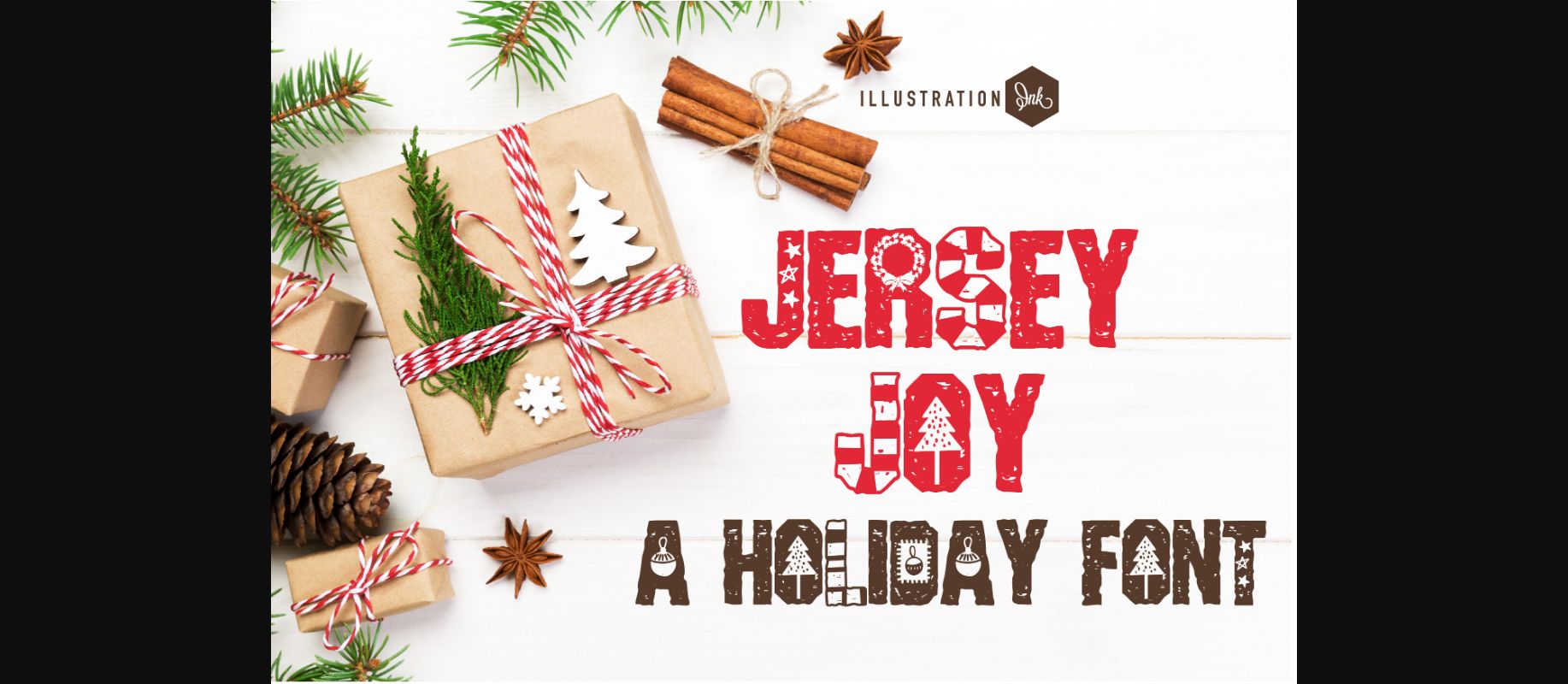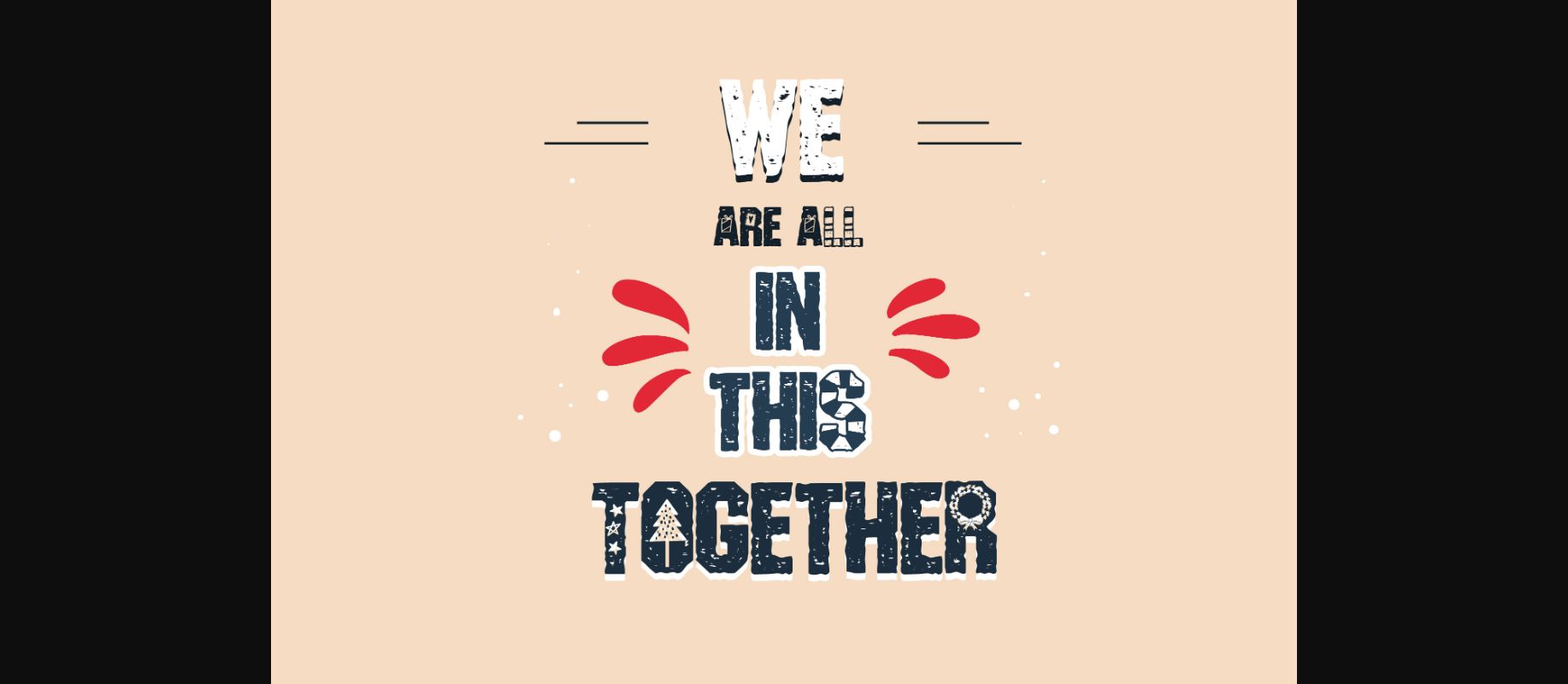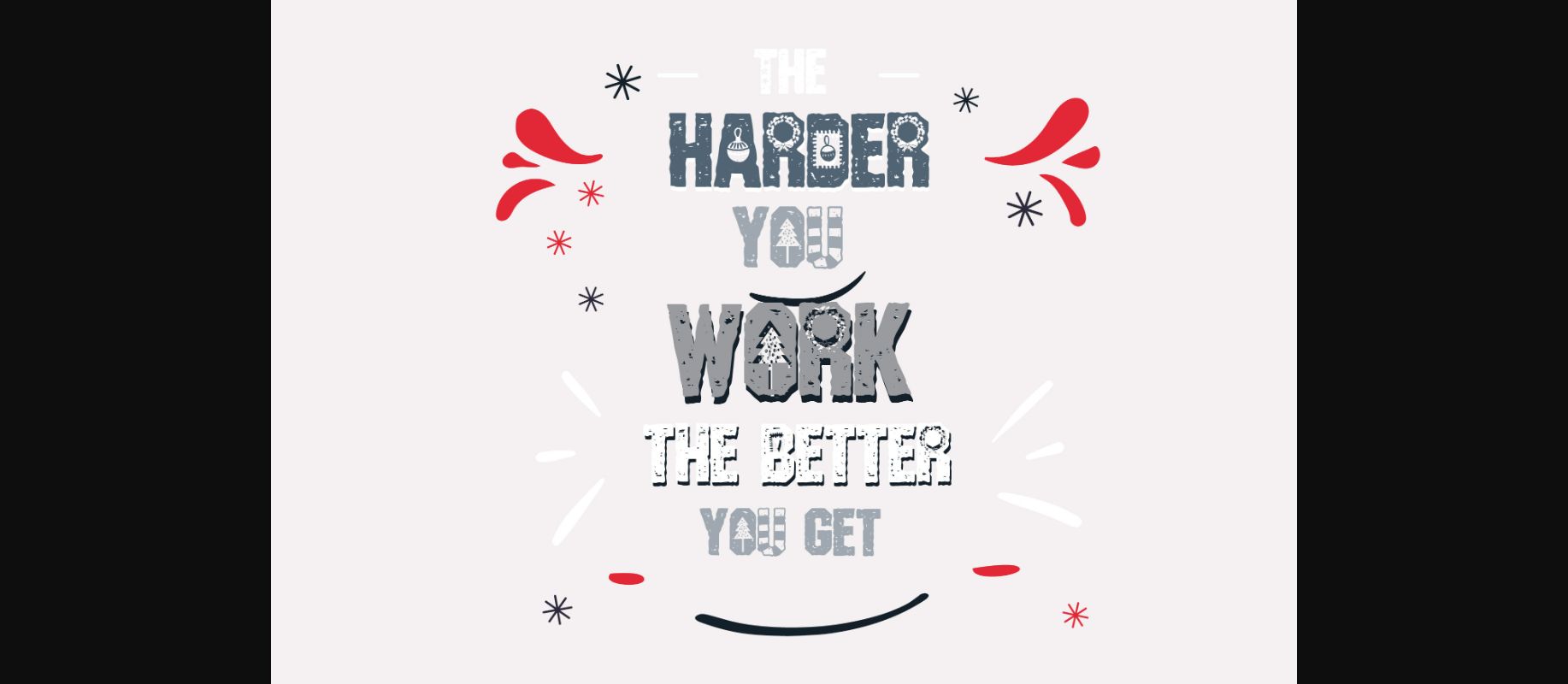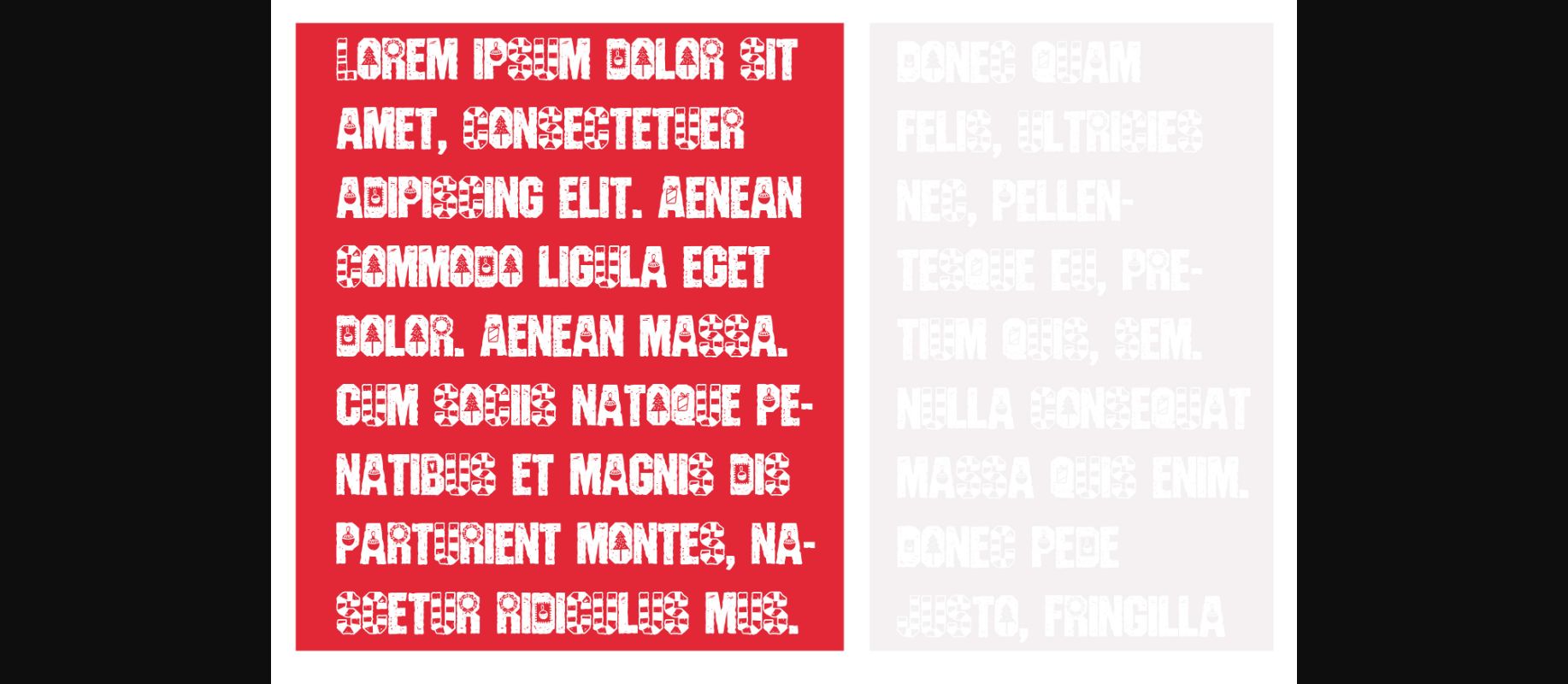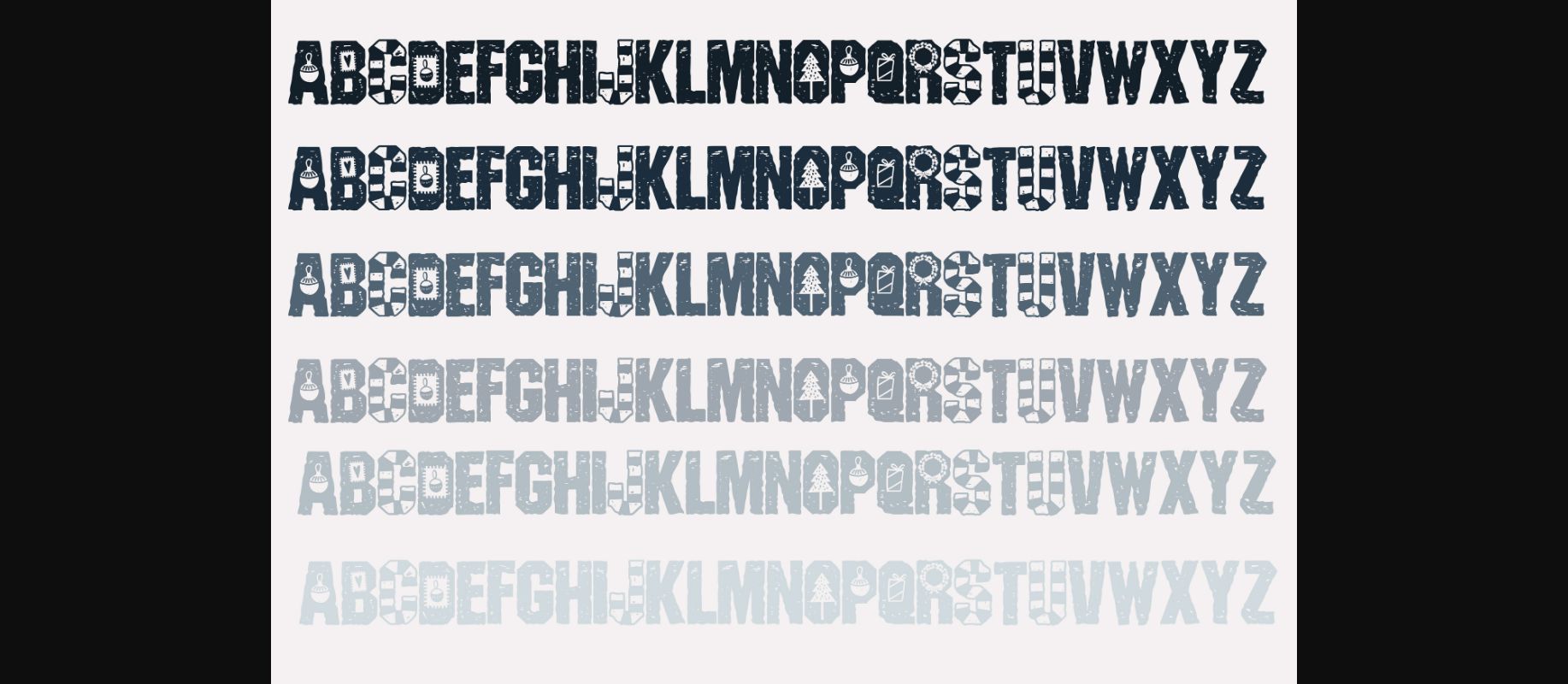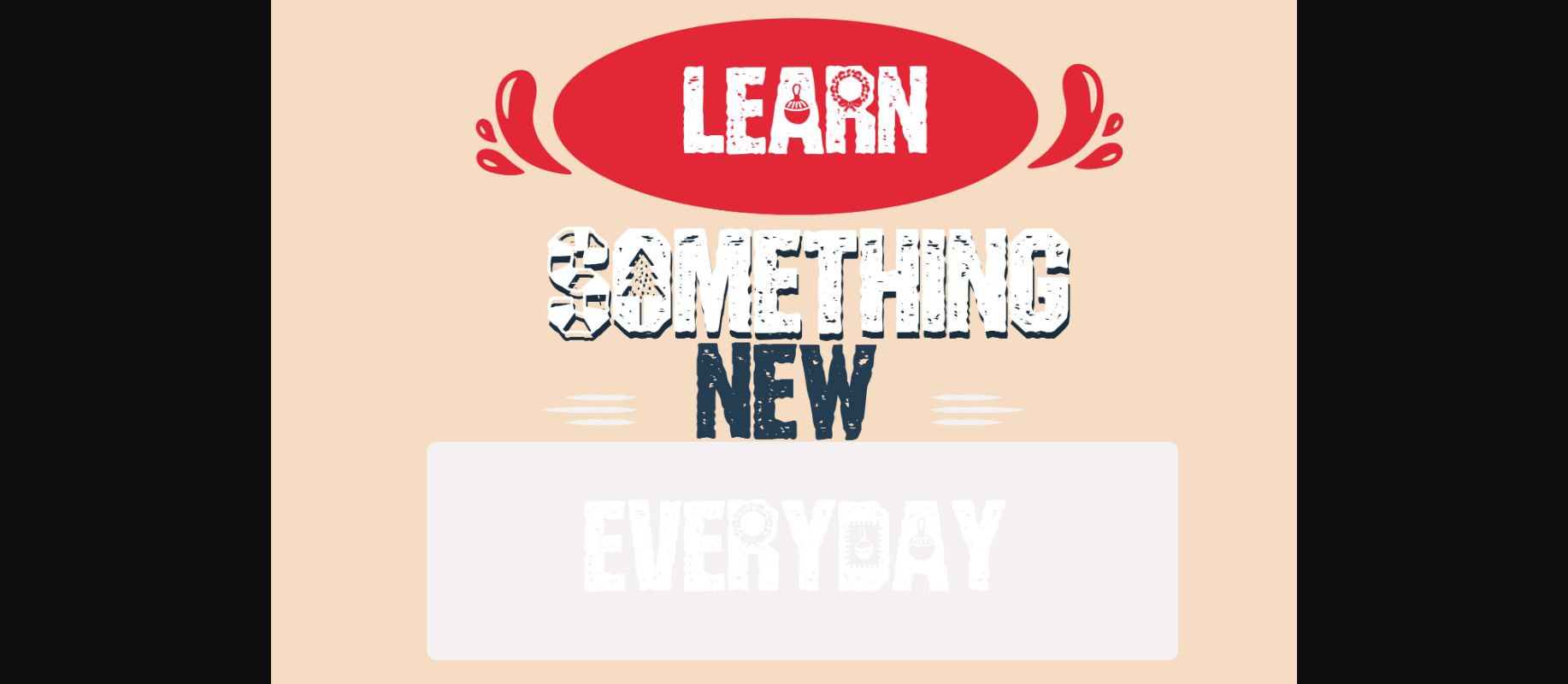
About Jersey Joy Font
This athletic font has been spruced up for Christmas with candy cane stripes, ornaments and more.
A hand-crafted font is a font that is designed to look like it was written by hand. It is often used for invitations, greeting cards, and other items. Handwritten fonts can be either formal or informal, and they can be used for a variety of purposes.
Handwritten fonts can be a great way to add a casual touch to your designs. They can also be used to create a sense of nostalgia or whimsy. However, it is important to choose a handwritten font that is appropriate for the project you are working on. A formal handwritten font may not be appropriate for a casual invitation, while an informal handwritten font may not be appropriate for a corporate document.
A hand-crafted font is a font that is designed to look like it was written by hand. It is often used for invitations, greeting cards, and other items. Handwritten fonts can be either formal or informal, and they can be used for a variety of purposes.
Handwritten fonts can be a great way to add a casual touch to your designs. They can also be used to create a sense of nostalgia or whimsy. However, it is important to choose a handwritten font that is appropriate for the project you are working on. A formal handwritten font may not be appropriate for a casual invitation, while an informal handwritten font may not be appropriate for a corporate document.